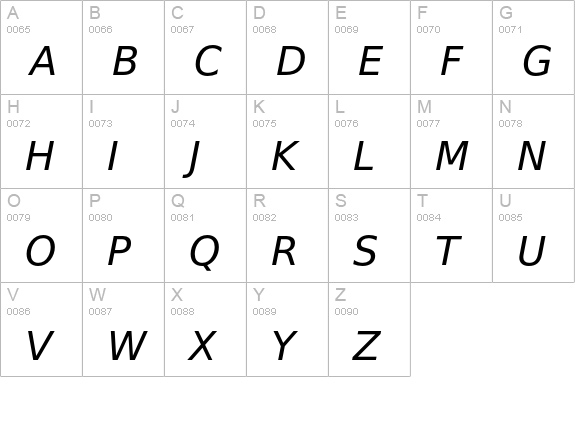
Prima Sans Oblique is a distinctive, italic variant in the Prima typeface family \xE2\x80\x94 well suited to design and typography projects.
Prima Sans Oblique font exudes a sense of modern elegance with its sleek and sophisticated design. The oblique style adds a touch of dynamism and movement to the otherwise clean and minimalist characters. The unique slanted angles give this font a distinctive flair, making it perfect for adding a contemporary edge to any design project. What sets Prima Sans Oblique font apart is not just its aesthetic appeal, but also the fact that it is available for free download at FontsMarket.com. This means that you can easily access and use this stylish font in your creative endeavors without any cost. Whether you're designing a website, creating a logo, or working on a print project, Prima Sans Oblique font offers versatility and style that will elevate your work to the next level. Download Prima Sans Oblique font today from FontsMarket.com and discover the perfect blend of modernity and sophistication for your design projects.